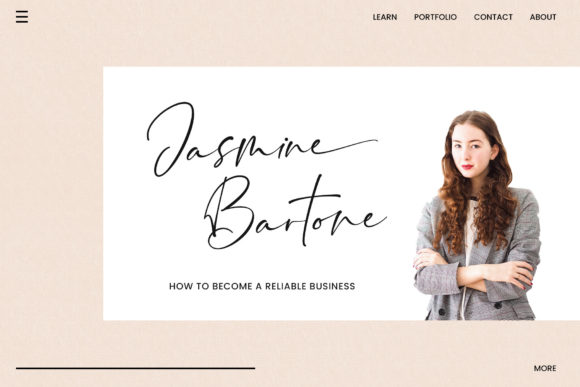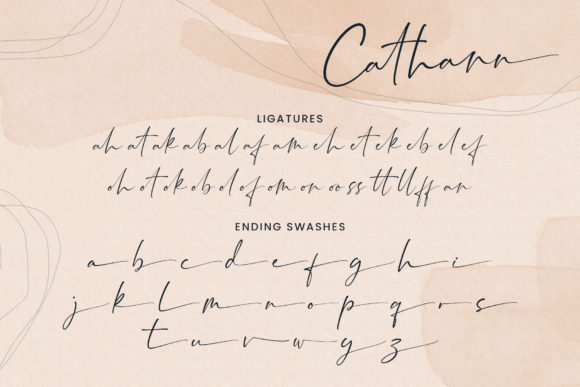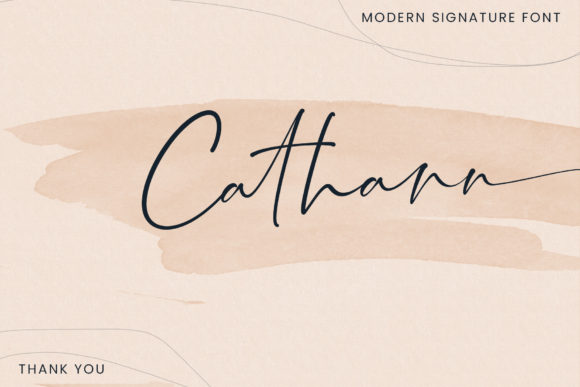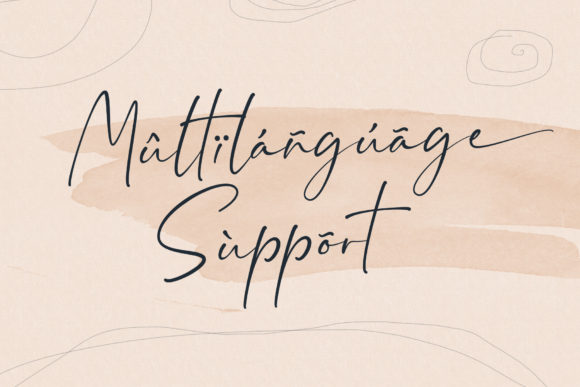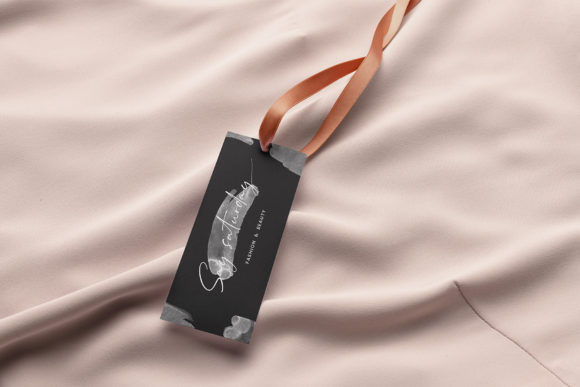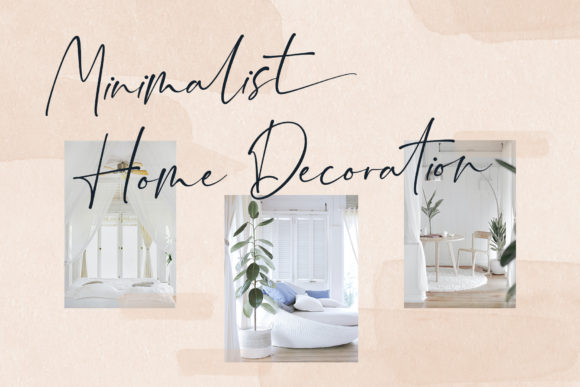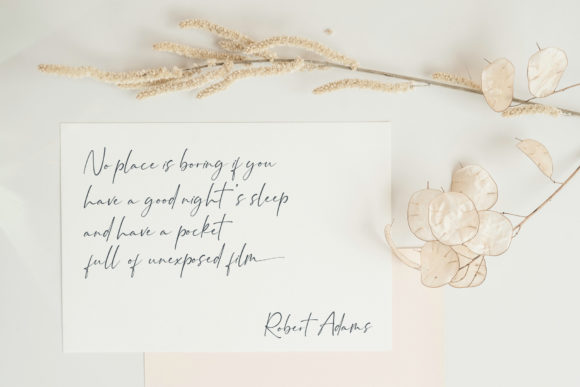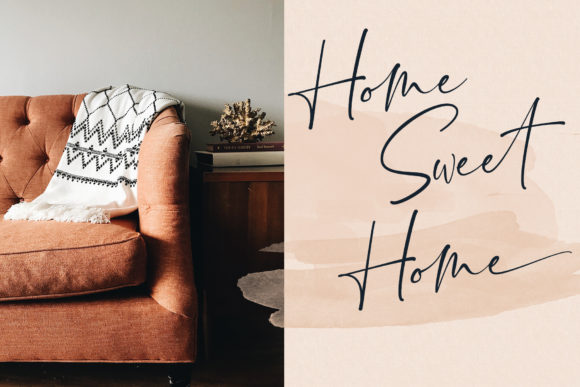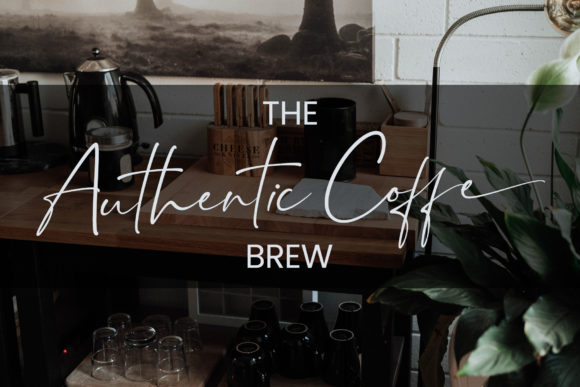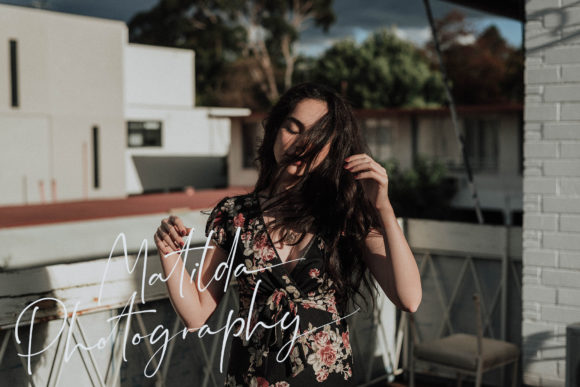
Cathann Font
About Cathann Font
Cathann is a gorgeous script font suitable for logos, branding, invitations, posters, apparel, layout design, taglines, and many more. Add it to any of your creative projects, and it will make them come alive!